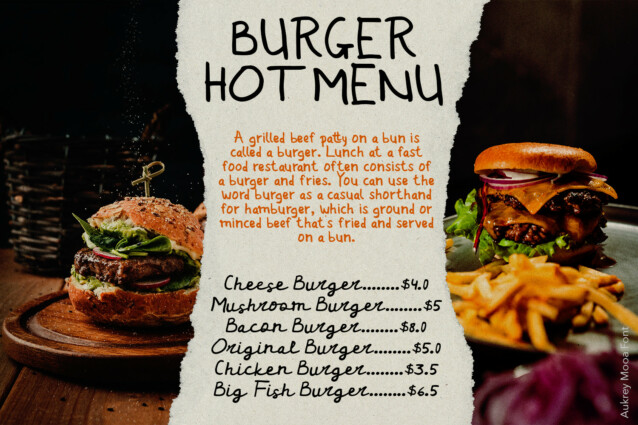
Aukrey Mooa Font
Aukrey Mooa Font gorgeous casual handwritten font. Aukrey Mooa font includes more than 50 ligatures to make everything look natural handmade handwritten. This font perfect for poster design, book covers, merchandise, fashion campaigns, newsletters, branding, advertising, magazines, greeting cards, album covers, and quote designs and more.